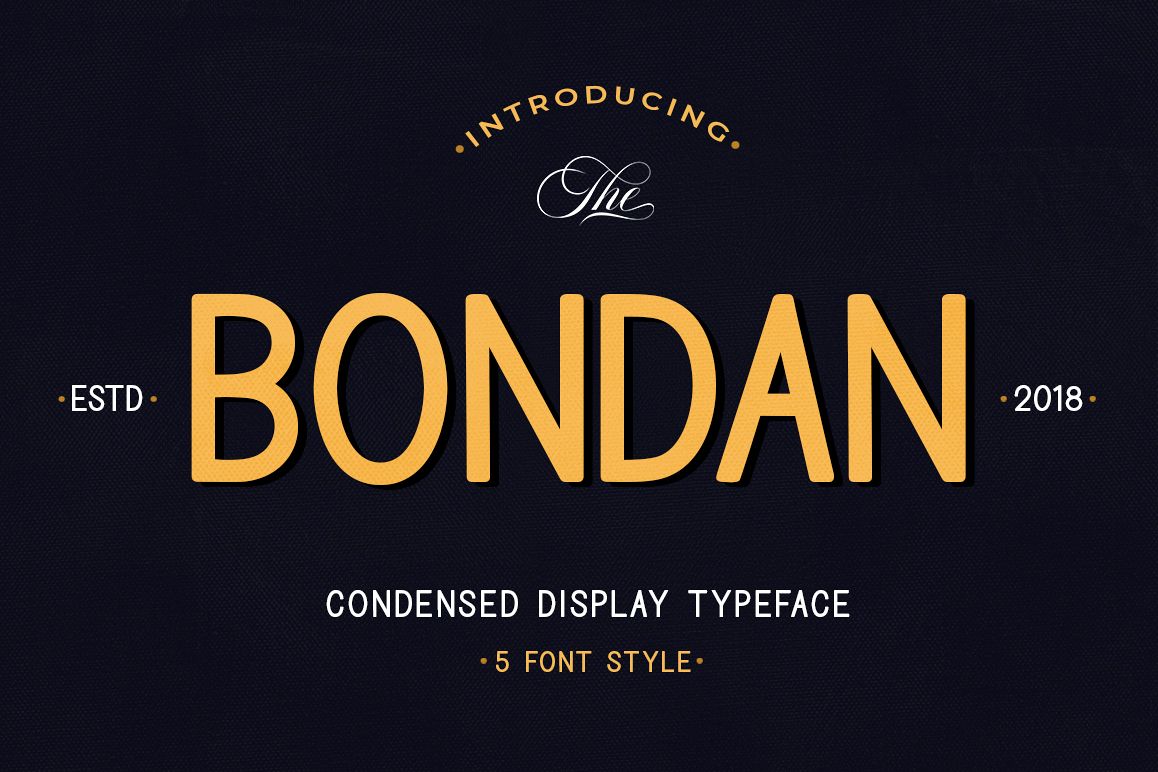
Bondan Typeface
Bondan is a family of Sans Serif fonts designed with a modern and vintage feel. Strong and dynamic. We set individual letters of medium distance for perfect typography. Bondan is very versatile. Perfect for all brands, magazines, posters, logos, logotype stickers, website titles, packaging, branding, quotes, business cards and more .
Bondan is equipped with a full set of uppercase letters, lowercase letters, numbers, punctuation and multilingual support. Each font family version is available in the .TTF and .OTF formats. for a total of 5 font files.
• Bondan Light
• Regular Bondan
• Bondan Bold
• Bondan Regular Outline
• Bondan Bold Outline